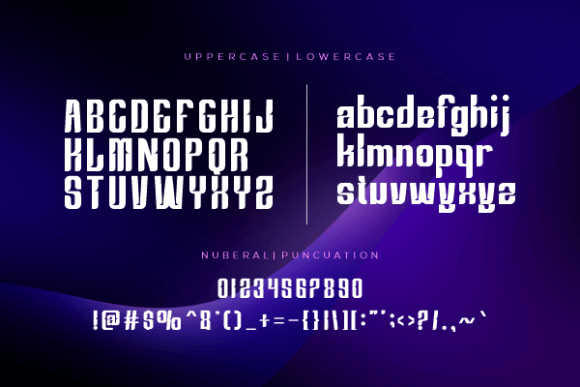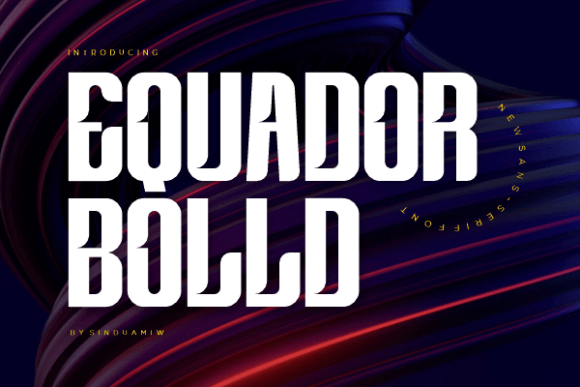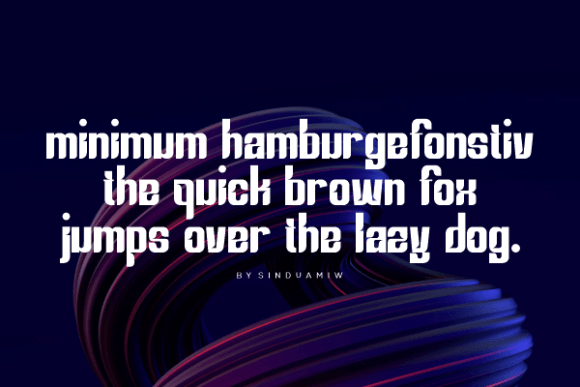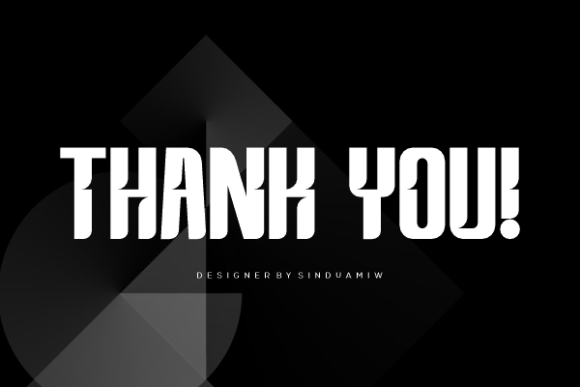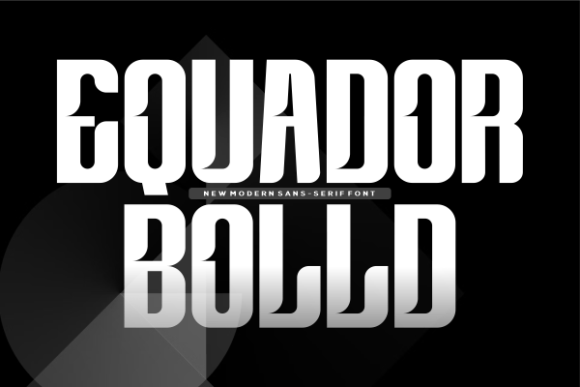
Discover the Beauty of Ecuador Bold Font: A Modern Sans-Serif Typeface
In the world of typography, fonts play a crucial role in conveying messages, expressing emotions, and creating visual identities. Among the numerous font styles, sans-serif fonts have gained immense popularity for their clean, simple lines, and modern appearance. One such font that has caught the attention of designers and crafters is the Ecuador Bold Font. In this article, we’ll delve into the world of sans-serif fonts, explore the characteristics of Ecuador Bold Font, and discuss its uses in various design contexts.
What is a Sans-Serif Font?
A sans-serif font is a typeface that lacks the small projecting features called “serifs” at the end of strokes. These fonts are often characterized by their clean, simple lines and modern appearance. They are commonly used in contexts where readability and a contemporary aesthetic are desired, such as in digital interfaces, signage, and advertising. Sans-serif fonts are known for their versatility and legibility, particularly at smaller sizes and on screens.
Characteristics of Ecuador Bold Font
Ecuador Bold Font is a sans-serif font that embodies the principles of modern typography. Its bold and sturdy design makes it perfect for headlines, titles, and emphasis. The font features:
- Clean and simple lines
- Bold and sturdy design
- Excellent legibility
- Versatile and adaptable
Uses of Ecuador Bold Font
Ecuador Bold Font can be used in a variety of design contexts, including:
- Digital Interfaces: Ecuador Bold Font is perfect for digital interfaces, such as websites, mobile apps, and software. Its clean design and excellent legibility make it easy to read on screens.
- Signage: The font’s bold design makes it suitable for signage, such as billboards, posters, and banners.
- Advertising: Ecuador Bold Font can be used in advertising materials, such as brochures, flyers, and social media graphics.
- Branding: The font’s modern appearance makes it an excellent choice for branding and visual identity projects.
Benefits of Using Ecuador Bold Font
Using Ecuador Bold Font offers several benefits, including:
- Improved Readability: The font’s clean design and bold strokes make it easy to read, even at smaller sizes.
- Enhanced Visual Appeal: Ecuador Bold Font adds a touch of modernity and sophistication to any design.
- Versatility: The font can be used in various design contexts, from digital interfaces to print materials.
Tips for Using Ecuador Bold Font
To get the most out of Ecuador Bold Font, follow these tips:
- Use it for Headlines: Ecuador Bold Font is perfect for headlines and titles. Use it to grab attention and create visual interest.
- Pair it with Other Fonts: Combine Ecuador Bold Font with other fonts to create visual contrast and add depth to your design.
- Experiment with Colors: Try different colors and textures to add visual interest and create a unique design.
| Font Name | Equador Bolld Font |
| Author | sinduamiw |
Ecuador Bold Font is a versatile and modern sans-serif font that offers a range of design possibilities. Its clean lines, bold design, and excellent legibility make it perfect for various design contexts, from digital interfaces to print materials. By understanding the characteristics and uses of Ecuador Bold Font, designers and crafters can create visually appealing and effective designs that communicate their message with clarity and style.